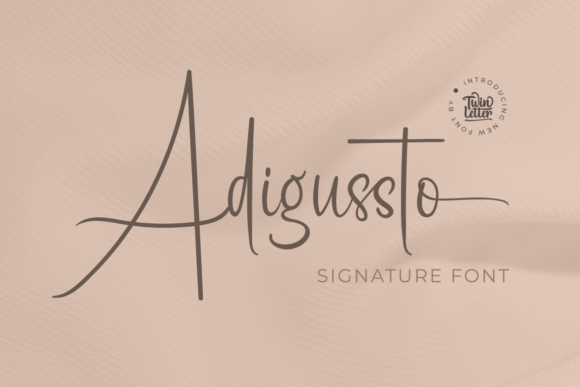
**Introducing Adigussto, the Exquisite Handwritten Font for Unforgettable Creations**
Step into the captivating world of Adigussto, where elegance and uniqueness intertwine to create a font that will leave an indelible mark on your designs. Adigussto's exquisite handwritten strokes exude a charm that is both timeless and utterly alluring.
Whether you're crafting heartfelt wedding invitations, expressing gratitude with thoughtful thank-you cards, or designing captivating logos that leave a lasting impression, Adigussto has the versatility to elevate your creations to new heights. Its graceful curves and enchanting swashes add a touch of sophistication to any project, making it the perfect choice for those seeking a personalized, eye-catching font.
Adigussto's PUA encoding opens up a treasure trove of glyphs and swashes that you can effortlessly access, empowering you to unleash your creativity and add a touch of whimsy to your designs. With Adigussto, the possibilities are endless, and every project becomes a masterpiece that tells a unique story.
**Embrace the Enchanting allure of Adigussto:**
* **Unleash your creativity:** Personalize your designs with Adigussto's captivating handwritten style, adding a touch of elegance and warmth that will captivate your audience.
* **Capture hearts with wedding invitations:** Create wedding invitations that are as unforgettable as the day itself, with Adigussto's romantic and charming strokes that embody the joy and love of this special occasion.
* **Express gratitude with heartfelt thank-you cards:** Show your appreciation with thank-you cards that radiate sincerity and warmth, penned in Adigussto's graceful script that conveys your genuine feelings.
* **Design logos that leave a legacy:** Craft logos that stand out from the crowd, with Adigussto's bold and distinctive characters that will leave a lasting impression on your customers and partners.
* **Add a touch of charm to greeting cards:** Spread joy and well wishes with greeting cards adorned with Adigussto's enchanting script, creating heartfelt messages that will warm the hearts of your loved ones.
Adigussto is the key to unlocking the full potential of your designs, adding a touch of magic to every project you undertake. It's more than just a font; it's an invitation to create something truly extraordinary.